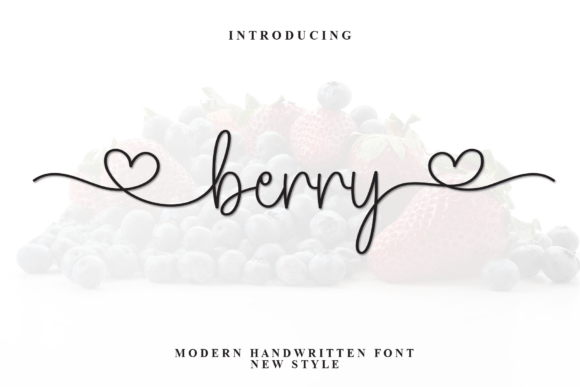
Berry Font: The Sweetest Script for Romantic Branding and Design
Are you looking for a font that exudes charm, simplicity, and connection? Look no further than the Berry font, a delightful ultra-thin script that is sure to capture your heart. This beautiful typeface is perfect for designers and crafters seeking to add a touch of romance and whimsy to their work. In this article, we’ll dive into the unique features of the Berry font, its ideal uses, and why it’s a must-have for your design arsenal.
The Unique Charm of Berry Font
The Berry font stands out from the crowd with its integrated heart-shaped swashes that bookend words, creating a romantic and cohesive look instantly. This distinctive feature makes it a perfect match for romantic branding, florist logos, and Valentine’s Day marketing. The delicate, monoline nature of the Berry font ensures it remains legible while adding a touch of sweetness to any layout. Whether you’re designing a logo, label, or social media graphic, the Berry font is sure to make your work shine.
Ideal Uses for Berry Font
The Berry font is incredibly versatile and can be used in a variety of design projects. Here are some ideal uses for this beautiful typeface:
- Romantic Branding: Create a lasting impression with the Berry font, perfect for branding related to love, relationships, and romance.
- Florist Logos: Add a touch of elegance and charm to your florist logo with the Berry font, making it a standout in the industry.
- Valentine’s Day Marketing: Make your Valentine’s Day marketing campaigns special with the Berry font, adding a romantic touch to your promotions.
- Photography Watermarks: Use the Berry font to create soft, heartfelt watermarks for your photography work, adding a professional finish.
- Personalized Gift Labels: Create customized gift labels with the Berry font, making your gifts extra special and thoughtful.
The Berry font comes with several features and benefits that make it a must-have for designers and crafters:
- Ultra-Thin Script: The delicate, monoline nature of the Berry font ensures it remains legible while adding a touch of sweetness to any layout.
- Heart-Shaped Swashes: The integrated heart-shaped swashes create a romantic and cohesive look instantly, making it perfect for romantic branding and design.
Why Choose Berry Font?
With so many fonts available, why choose the Berry font? Here are a few reasons why this typeface stands out:
- Unique and Eye-Catching: The Berry font is a one-of-a-kind typeface that will make your design stand out from the crowd.
- Easy to Read: Despite its delicate nature, the Berry font remains legible, making it perfect for use in a variety of design projects.
- Versatile: The Berry font can be used in a range of design projects, from romantic branding to photography watermarks.
In conclusion, the Berry font is a charming, ultra-thin script that celebrates the beauty of simplicity and connection. With its integrated heart-shaped swashes, delicate monoline nature, and PUA encoding, this font is perfect for designers and crafters seeking to add a touch of romance and whimsy to their work. Whether you’re creating romantic branding, florist logos, or personalized gift labels, the Berry font is sure to make your design shine.